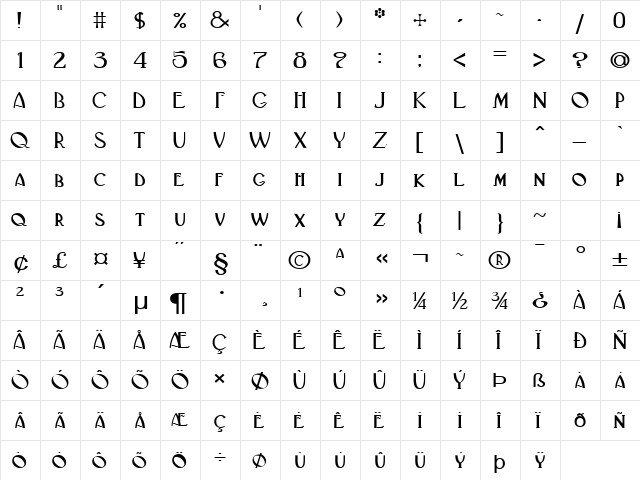
Deco-Extended Normal
Design Context for Deco-Extended Typeface
Deco-Extended is a composed and adaptable typeface that performs quietly and consistently across a wide range of design contexts.
Pro Tip: Use Deco-Extended in both headline and body roles to test its range before committing to a single application.